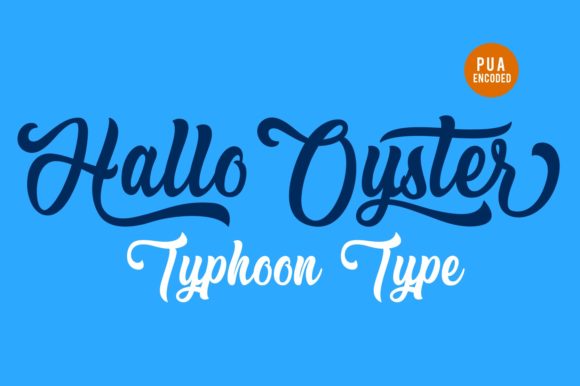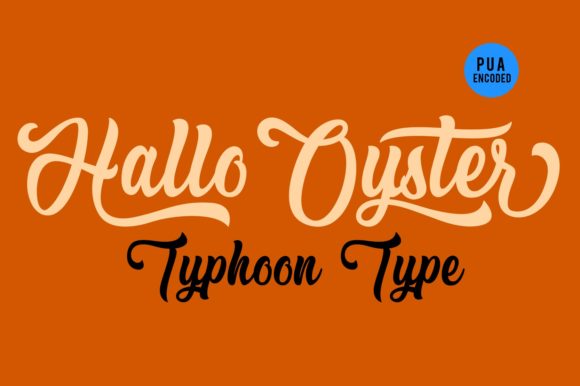
Hallo Oyster Font
About Hallo Oyster Font
The world will be your Oyster with this stunning script! Hallo Oyster is a unique and bold handwritten font with lots of character.